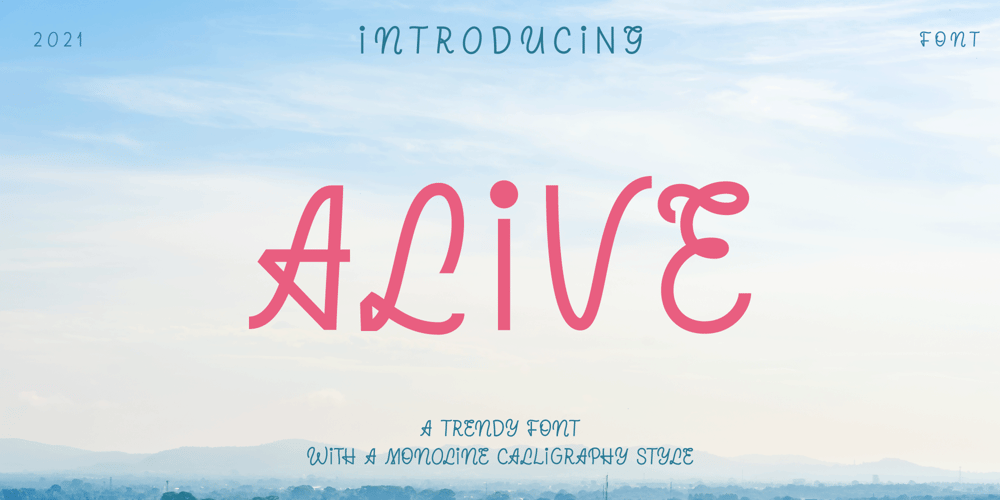
Alive Font Family was designed by Mariia Biriukova and published by Tasty Type. Alive contains 1 styles and family package options. A fun trendy font with a monoline calligraphy style.This is a display sans-serif font that we recommend using in the following types of work; magazines (titles and layouts), logos and branding, invitations, quotes, blog headers, posters and advertising.